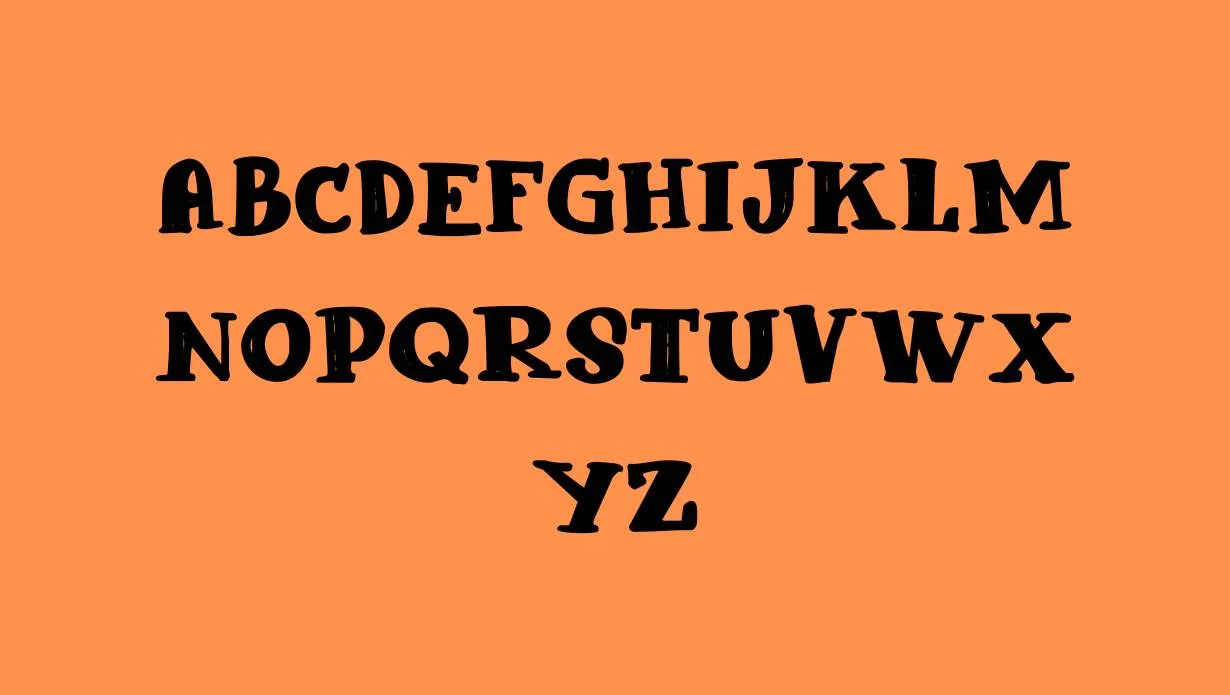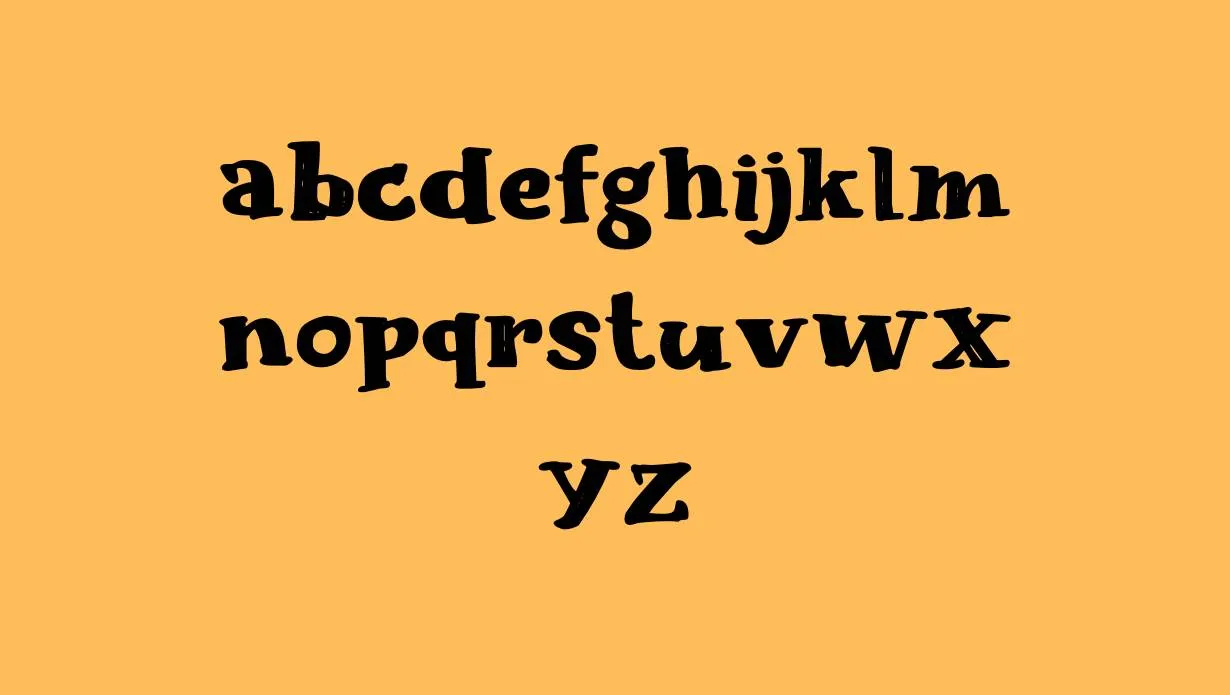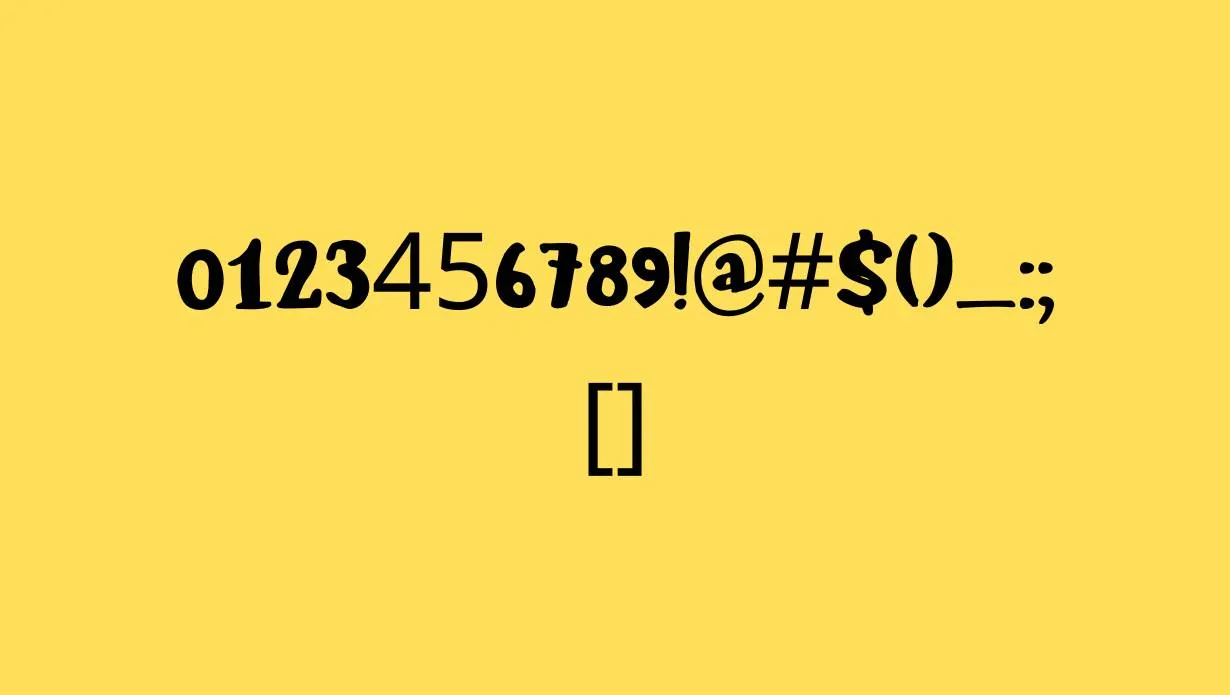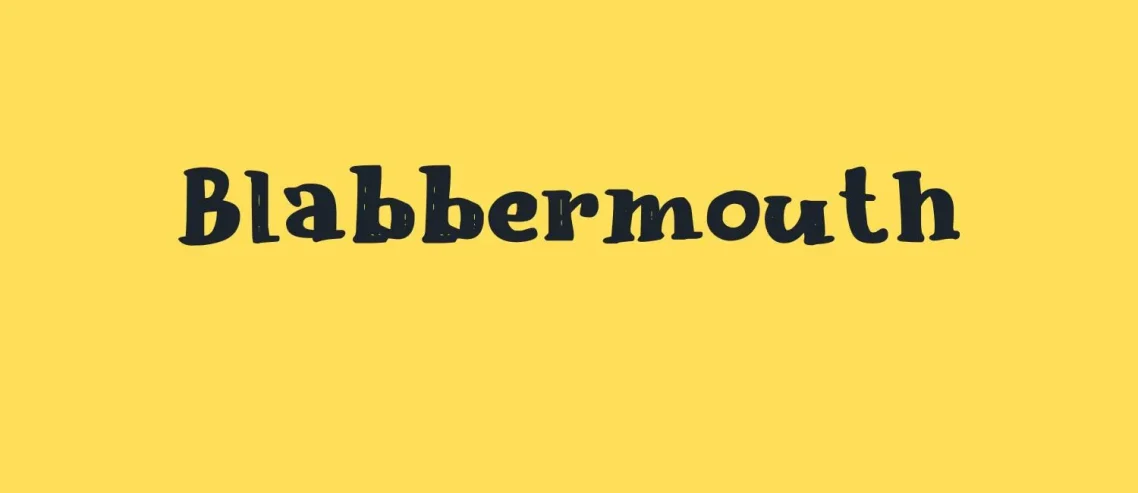
Blabbermouth Font is a notable typeface with bold characters. This stunning typeface belongs to the fancy font family. You can see a slight touch of brush category texture in it as well perfect for your designing projects.
View of Blabbermouth Font